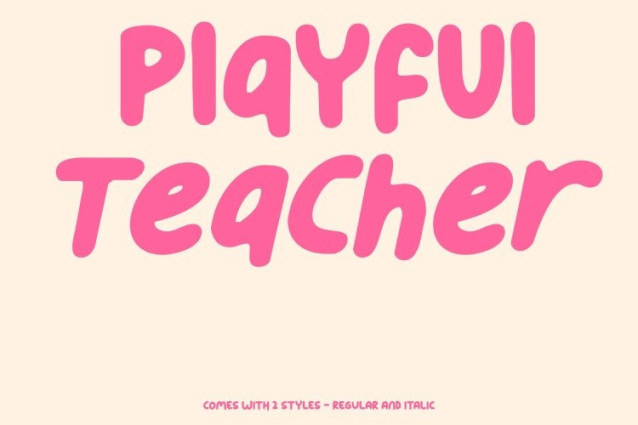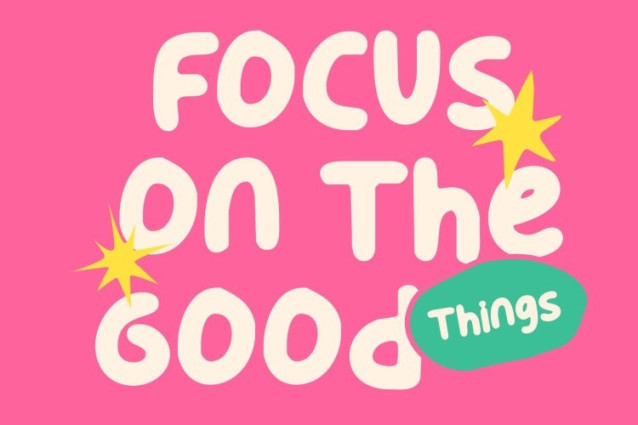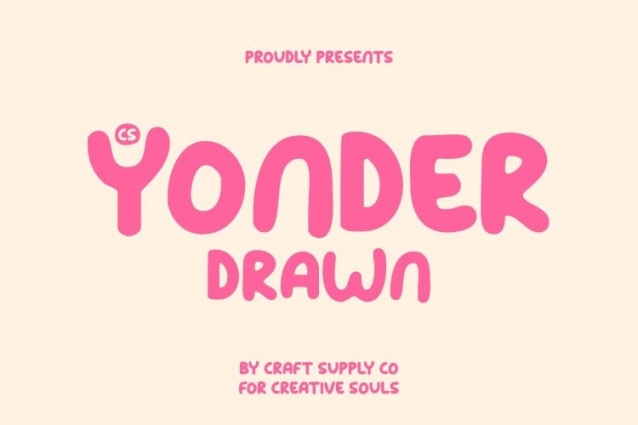
CS Yonder Drawn Font – This is a delightful kids’ font with a handwritten touch that captures the joy and spontaneity of childhood. Each letter combines clean lines with organic curves in a charming sans-serif design, creating a typeface that feels approachable, fun, and full of personality. Its friendly style makes it perfect for projects celebrating creativity, imagination, and youthful energy.
Cheerful Shapes with Expressive Energy
The rounded, carefully crafted forms bring warmth and positivity to any design. The handwritten influence adds a sense of motion and authenticity, giving your text a natural, lively rhythm. Whether used in children’s content, playful branding, or whimsical designs, this font radiates happiness and lightheartedness.
Perfect for Creative and Colorful Projects
From children’s books and educational materials to posters, logos, and packaging, shines in colorful, imaginative designs. Its versatility ensures it adapts beautifully across both print and digital media, enhancing every project with a joyful and engaging tone.
A Fun Typeface with Heart and Character
More than just a cute display font, celebrates youth, creativity, and positivity. Blending clarity with expressive charm, it invites designers to create works that feel fun, friendly, and inspiring perfect for bringing smiles to every creative project.